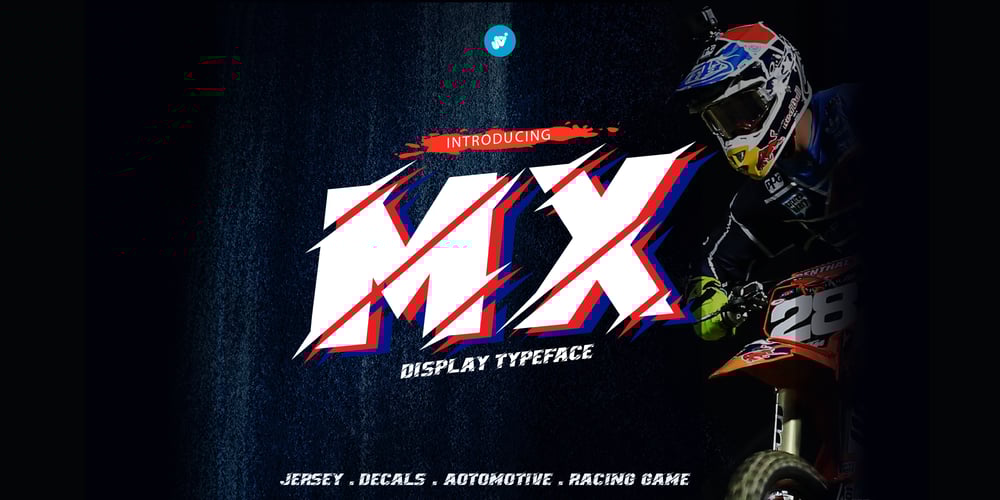
MX Pro Font Family was designed by Wahyu Aji Prasetyo and published by WAP Type. MX Pro contains 1 styles and family package options. MX very suitable for automotive magazine covers, racing game covers, logos & branding, product design, labels and so on.